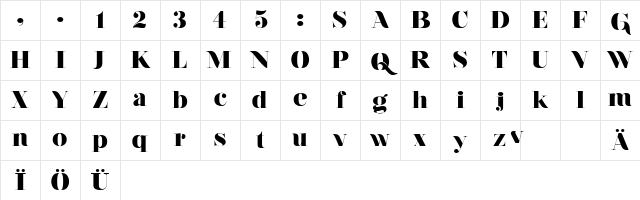
Complete Nouvelle Vague Black glyph index. Displaying only characters natively supported by Nouvelle Vague Black font.
Nouvelle Vague is a composed and adaptable typeface that performs quietly and consistently across a wide range of design contexts.
Who designed the Nouvelle Vague Black font?